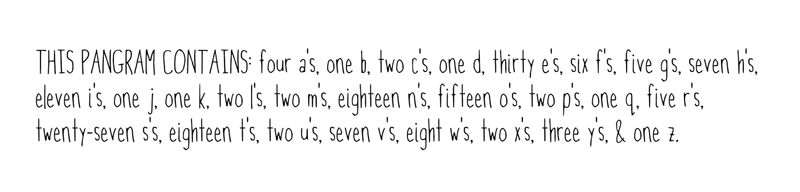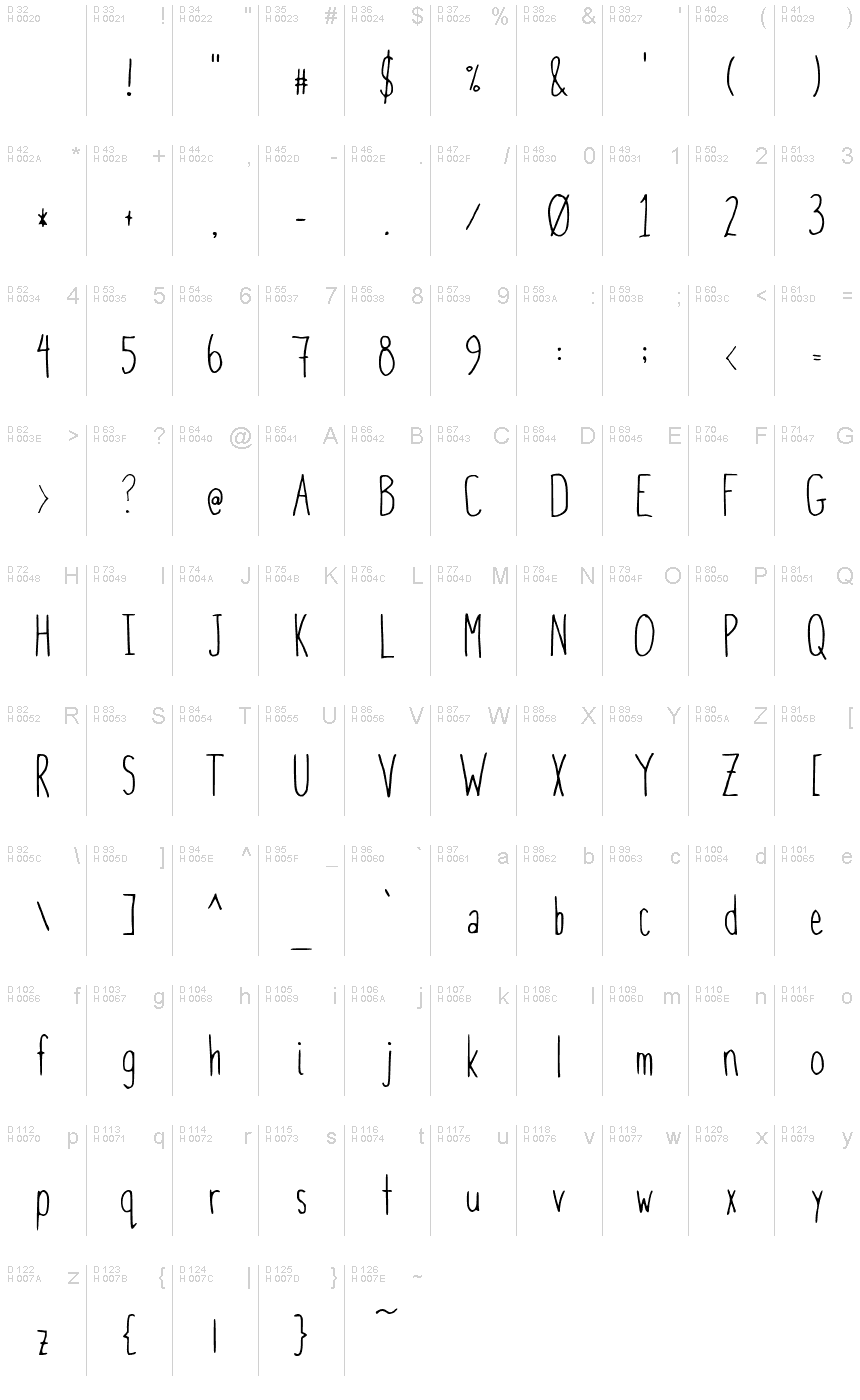
Skinny Me Regular
Skinny Me, a delightful creation by Mike Evans, is a light and condensed handwritten font that adds a touch of whimsy to any project. With its slender strokes and playful curves, this font is perfect for creating eye-catching logos, branding materials, and invitations. Its unique style exudes elegance and sophistication while maintaining an approachable charm. Skinny Me effortlessly lends itself to a wide range of projects including fashion magazines, beauty blogs, wedding stationery, and lifestyle websites. Unleash your creativity with Skinny Me and watch your designs come to life in an enchanting way.